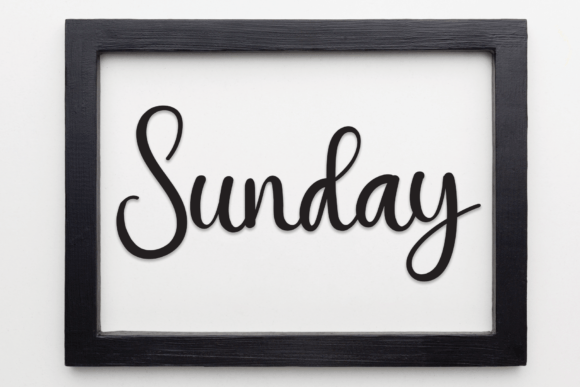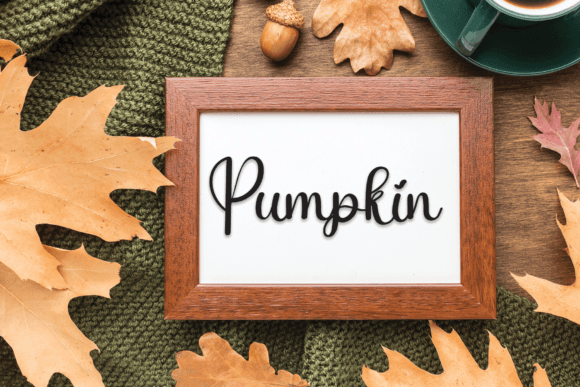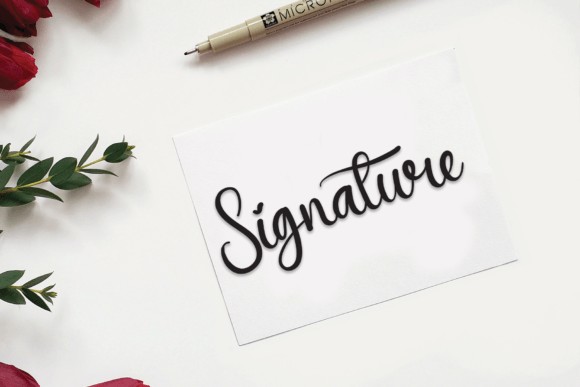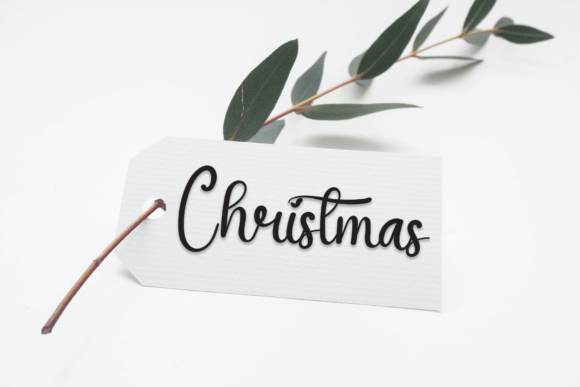
The Christmas Font
Add Holiday Cheer with The Christmas Font
The Christmas Font is a cheerful and approachable handwritten typeface designed to bring warmth and joy to your seasonal projects. Whether you’re preparing for the holidays or simply want a cozy, handwritten look, this font delivers the charm you need.
Designed for Festive Creativity
From greeting cards to digital designs, this font shines across all creative platforms. You can use The Christmas Font to:
• Personalize your holiday crafts
• Design eye-catching social media graphics
• Create heartwarming invitations
• Style DIY ornaments and gifts
• Enhance printables and digital templates
It’s easy to work with and provides excellent readability in any format.
Perfect for All Skill Levels
Handwritten Feel for Personal Touch
Each letter has a smooth and friendly shape that mimics real handwriting. That makes your messages feel more heartfelt and personal—perfect for the holiday season. The natural flow of the characters adds warmth without sacrificing legibility.